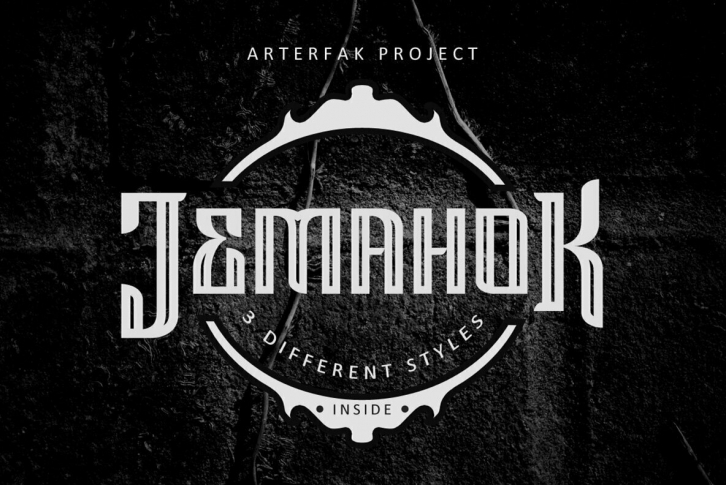
The all-caps font with 4 different styles Regular - Inline - Shadow - Rusty. The flexible font that you can use it for many design style, there are some ligatures as an option for your design. Recommended for your headline.